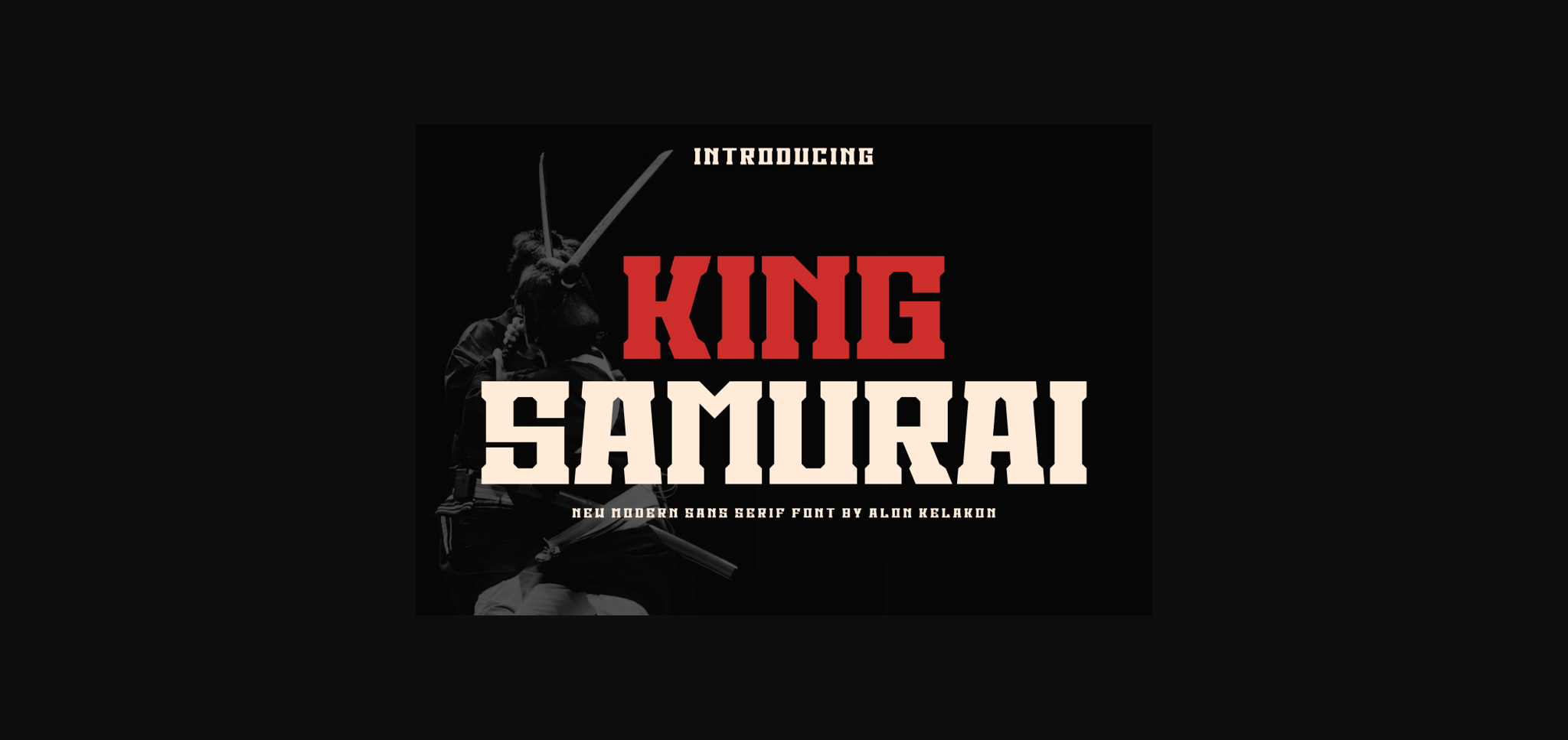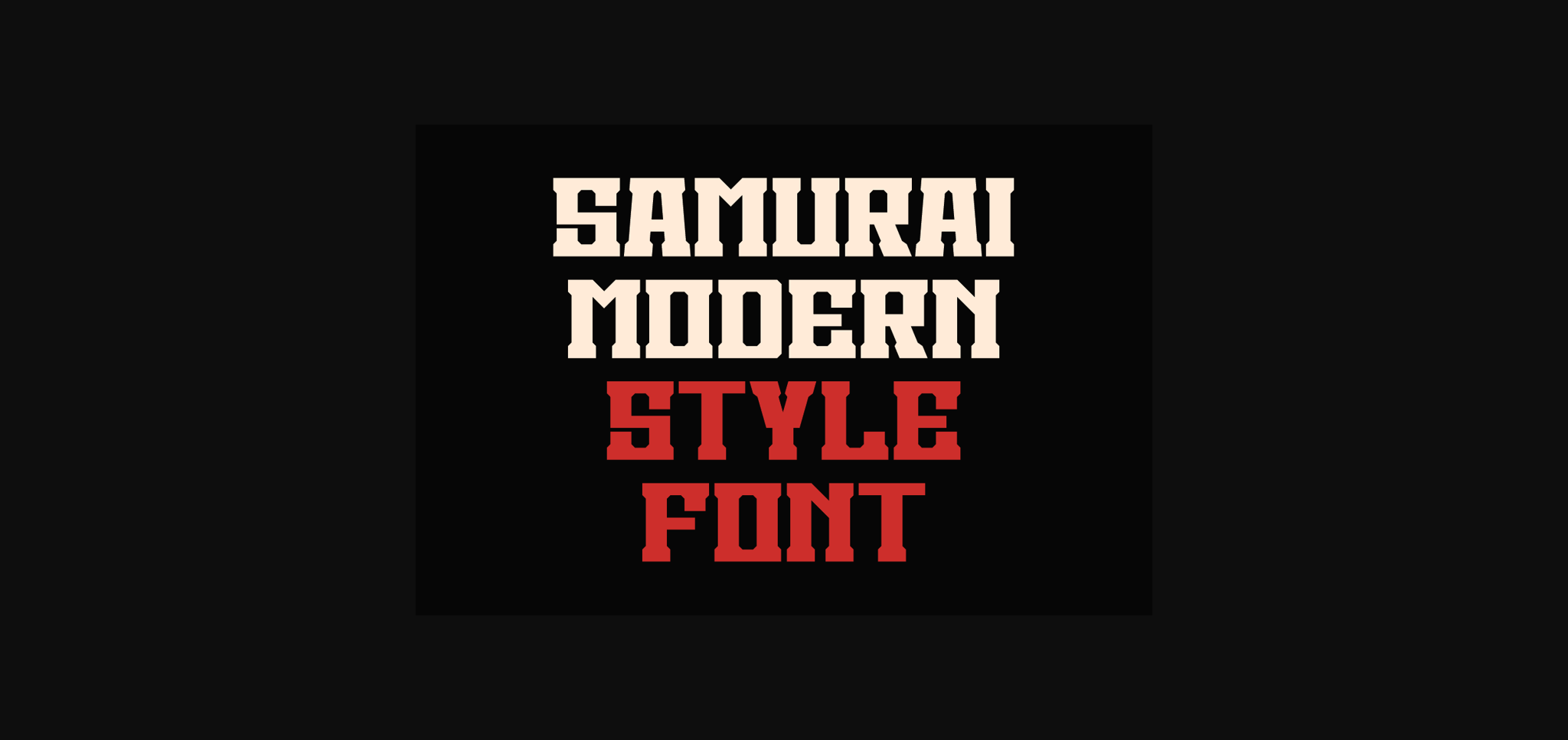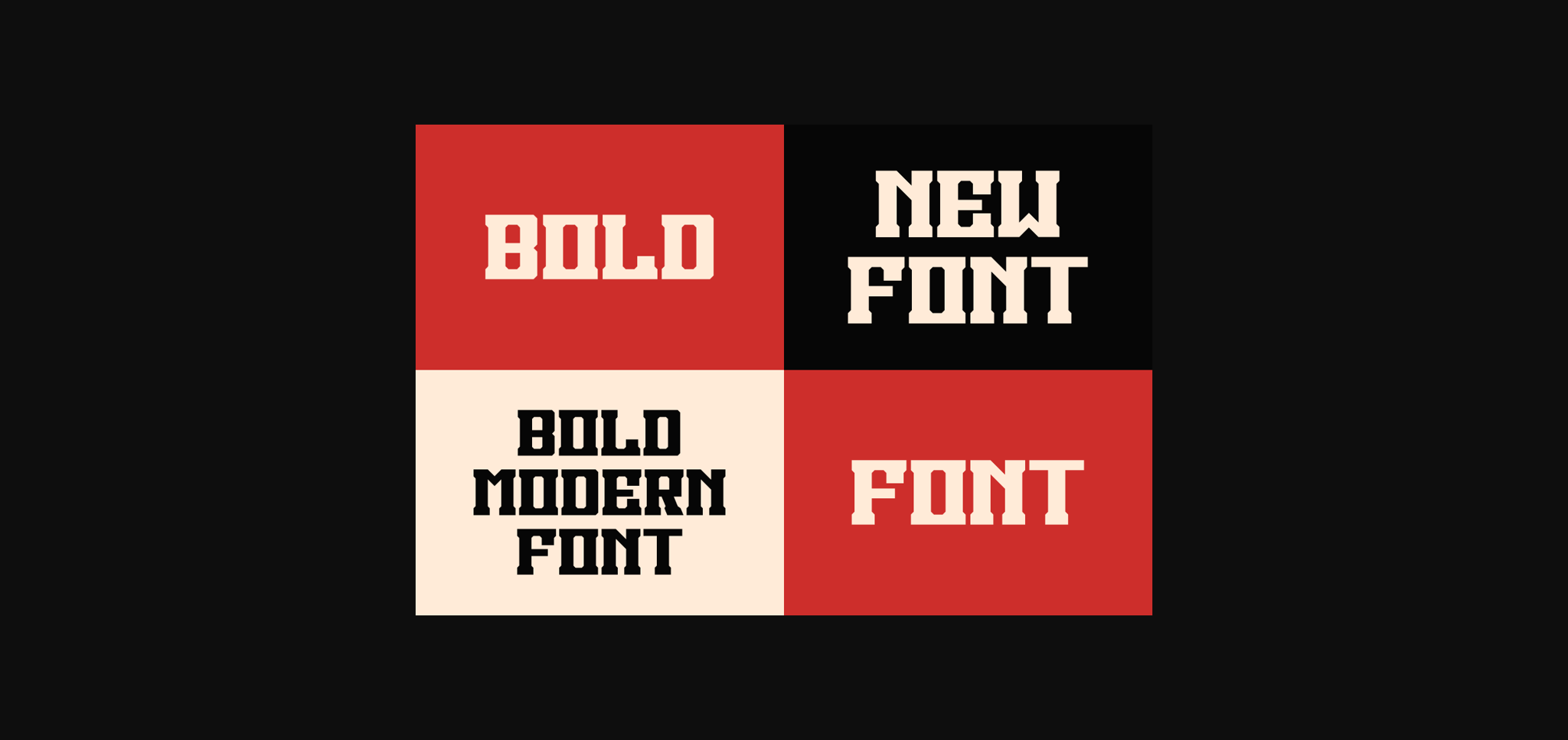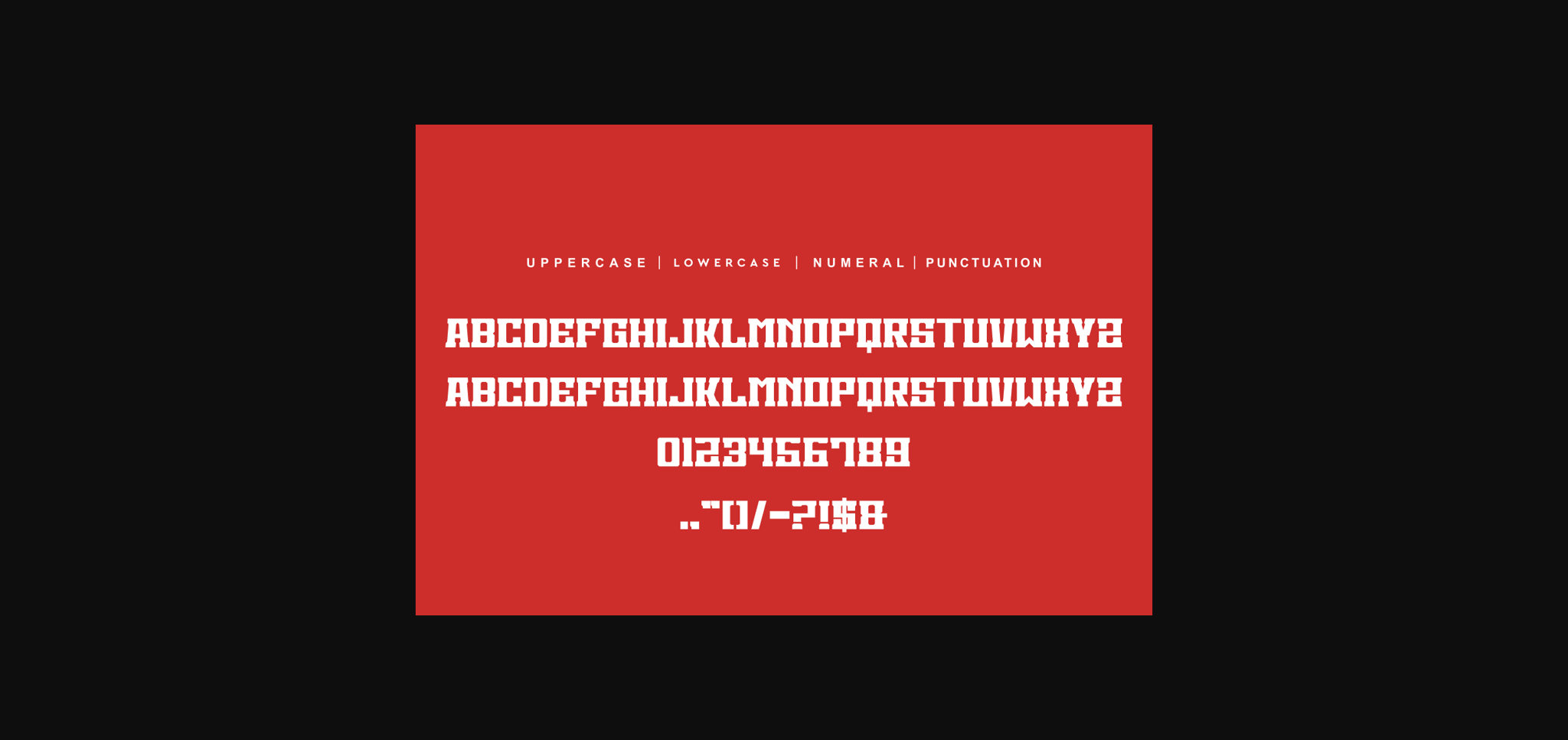
About King Samurai Font
King Samurai is a cool and bold sans serif font. Masterfully designed to become a true favorite, this font has the potential to bring each of your creative ideas to the highest level!